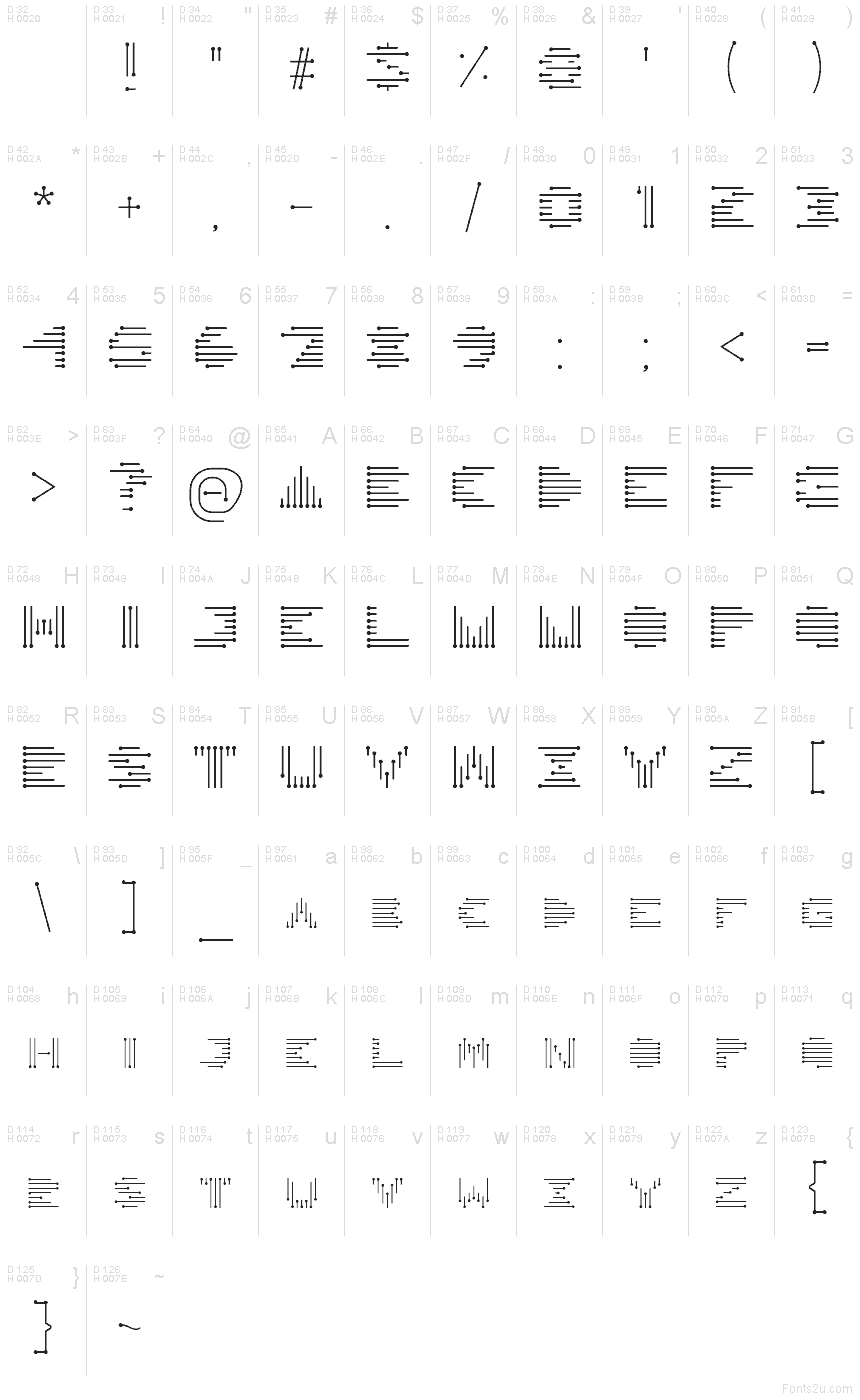
Music Volume Thin font by Galih Nugroho is a free techno display typeface. Drawn with needle-thin bars, stacked lines, and dot-like faders, it reads like an equalizer frozen mid-beat. Letters feel airy yet rhythmic, with a slick, modular cadence that hints at sliders, waveforms, and LED strips. Part of the Music Volume family, it brings a crisp, high‑frequency shimmer that pops on dark or neon backgrounds.
This free font shines on DJ flyers, album covers, nightclub signage, streaming thumbnails, tech podcast branding, and motion graphics stings. Using Music Volume Thin at large sizes with generous tracking keeps the rhythm legible. Pair it with a clean geometric sans for body copy to let the wired, audio‑visual textures take center stage.